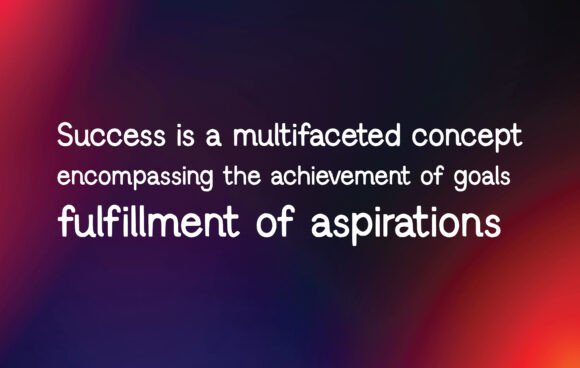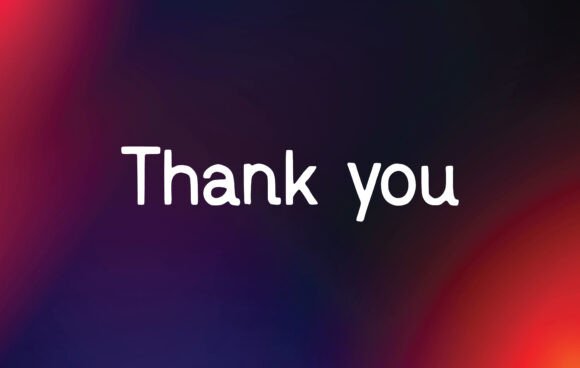
Unlock Your Creative Potential with the Anemone Font
Have you ever stared at a blank canvas, waiting for the perfect idea to strike? That’s exactly what happened to me last week, as I sat with my sketchbook and a blank page staring back at me. I wanted to create something beautiful, something that would capture the essence of my creativity. And then, it hit me – the perfect font to bring my vision to life: the Anemone Font.
This lovely and beautiful handwritten font is more than just a typography choice – it’s a key to unlocking your creative potential. With its elegant and whimsical style, the Anemone Font is the perfect choice for creating eye-catching logos, branding, and quotes that will leave a lasting impression. Whether you’re a seasoned designer or just starting out, the Anemone Font is a valuable tool that will help you take your creative ideas to the highest level.
Anemone Font Key Features
- Character Set: The font includes a wide range of characters, including uppercase and lowercase letters, numbers, and punctuation marks.
- Unique Characteristics: Anemone Font features a distinctive, elegant design with flowing lines and subtle flourishes, making it suitable for various design applications.
- Font Weight and Style: Anemone Font comes in Regular, Italic, Bold, and Bold Italic styles, providing flexibility for designers to choose the right weight and style for their project.
- Language Support: The font supports a wide range of languages, including English, Spanish, French, German, Italian, and many others, making it a great choice for multilingual designs.
Anemone Font Review
Anemone Font is a beautiful and delicate typeface that can add a touch of elegance to any design project. ✨ I love the way the letters curve and flow together, creating a sense of movement and fluidity. The font is perfect for designs that require a sense of whimsy and wonder, such as children’s books, wedding invitations, or branding for a boutique shop.
The Anemone Font has a wide range of styles and weights, making it easy to customize and adapt to different design needs. ✨ From the light and airy “Light” style to the bold and dramatic “Black” style, there’s a version of Anemone that’s sure to fit the bill.
- ⚠️ The Anemone Font may not be the best choice for designs that require a lot of clarity or legibility, as the curves and flourishes can make it difficult to read at small sizes.
- ⚠️ The font may also be challenging to use in designs with a lot of bold text or headings, as the delicate nature of the font can get lost in the background.
Overall, I think the Anemone Font is a beautiful and versatile typeface that can add a touch of magic to any design project. While it may have some limitations, the benefits far outweigh the drawbacks, making it a great choice for designers who want to create something truly unique and special.
Tips for Getting the Most Out of Anemone Font
To get the most out of the Anemone font, use it for headings and titles, as it’s designed to be visually striking. You can also use the font in combination with other fonts to create a unique and eye-catching design.
The Anemone font is commonly used in graphic design, digital art, and typography. It’s also used in branding and marketing materials, such as logos, business cards, and brochures.
Q: Can I customize Anemone Font to fit my specific design needs?
Yes, Anemone Font is designed to be highly customizable. With its OpenType features, you can access a wide range of stylistic sets, ligatures, and swashes to create unique and tailored designs. You can also use font editing software like FontForge or FontLab to make custom modifications to the font.